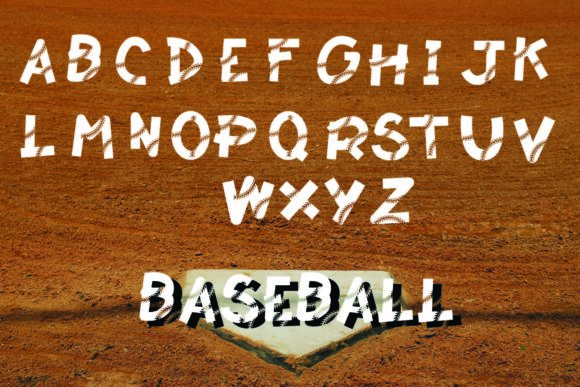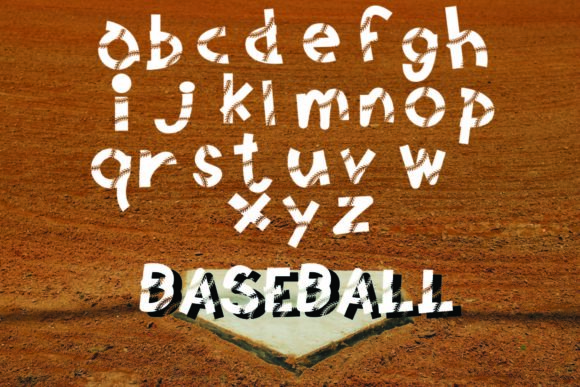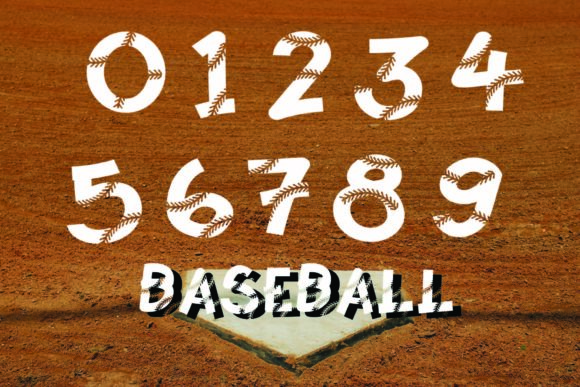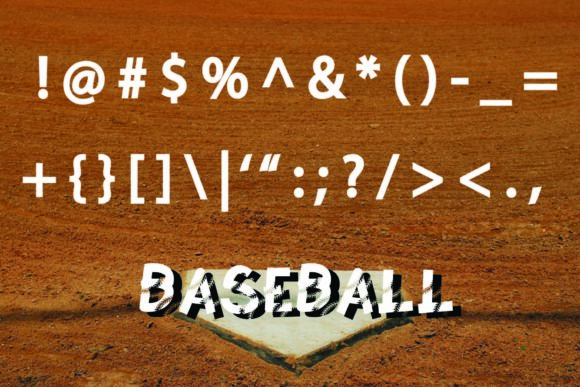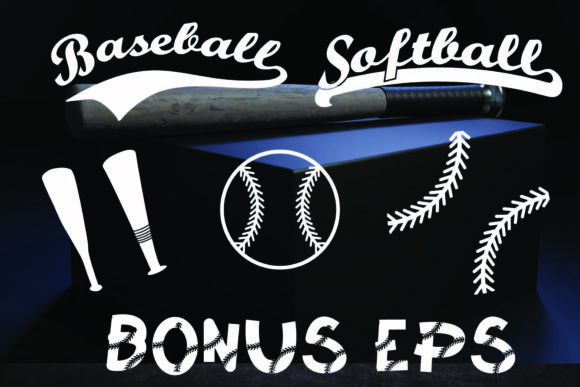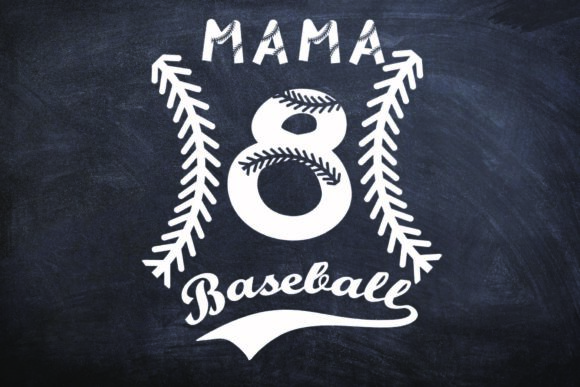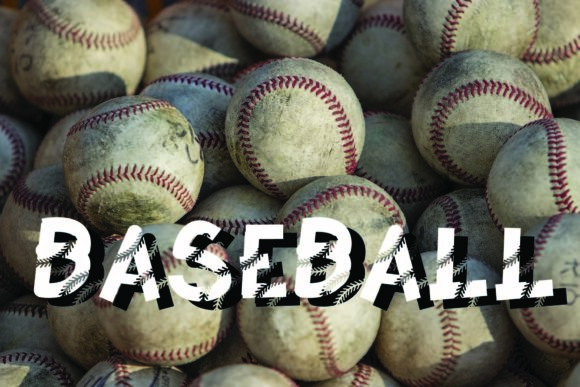
Baseball Softball Lace Font: The Perfect Choice for Sports Lovers!
Are you a sports enthusiast looking for a unique and stylish font to showcase your passion for baseball and softball? Look no further! Introducing the Baseball Softball Lace font, a stunning display font that’s perfect for all your sport-themed projects. In this article, we’ll dive into the world of this amazing font and explore its features, benefits, and uses.
What is Baseball Softball Lace Font?
Baseball Softball Lace font is a carefully crafted display font that captures the essence of America’s favorite pastime – baseball and softball. This font is designed to resemble the intricate lace patterns found on baseball and softball gloves, making it a perfect fit for sports-themed designs. With its bold, yet elegant design, this font is sure to make a statement in any project.
Features of Baseball Softball Lace Font
The Baseball Softball Lace font comes with a range of features that make it an ideal choice for designers and crafters. Some of its key features include:
• Unique Design: The font’s lace-inspired design is unlike anything you’ve seen before. It’s a perfect blend of sporty and stylish.
• Bold and Elegant: The font’s bold design makes it perfect for headlines, titles, and logos, while its elegant curves add a touch of sophistication.
• High-Quality: The font is carefully crafted to ensure high-quality output, making it perfect for print and digital designs.
Benefits of Using Baseball Softball Lace Font
So, why choose the Baseball Softball Lace font for your sport-themed projects? Here are just a few benefits:
• Add a Touch of Sports Spirit: The font’s sports-inspired design adds a touch of excitement and energy to any project.
• Stand Out from the Crowd: The font’s unique design ensures that your project stands out from the crowd, making it perfect for competitive designs.
• Perfect for Branding: The font’s bold and elegant design makes it perfect for logos, branding, and marketing materials.
• Endless Creative Possibilities: The font’s versatility makes it perfect for a range of projects, from t-shirts and hats to posters and social media graphics.
Uses of Baseball Softball Lace Font
The Baseball Softball Lace font is perfect for a range of sport-themed projects, including:
• T-Shirts and Apparel: Create stunning sports-themed t-shirts, hats, and other apparel with this amazing font.
• Posters and Flyers: Design eye-catching posters and flyers for sports events, tournaments, and leagues.
• Logos and Branding: Use the font to create bold and elegant logos for sports teams, leagues, and events.
• Social Media Graphics: Create stunning social media graphics, including Facebook posts, Twitter headers, and Instagram stories.
Baseball Softball Lace is the perfect choice for all the sports lovers! Use this amazing display font for all your sport-themed project!